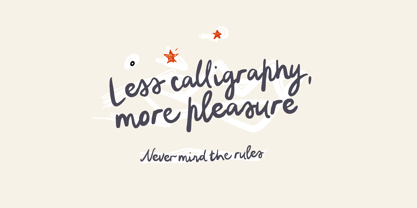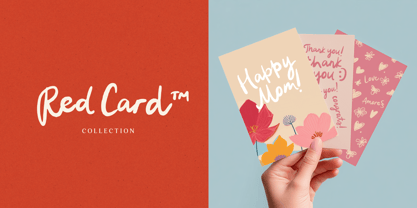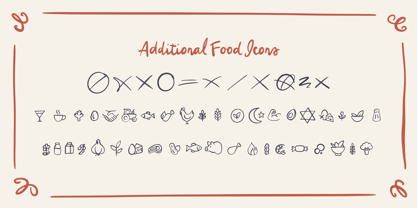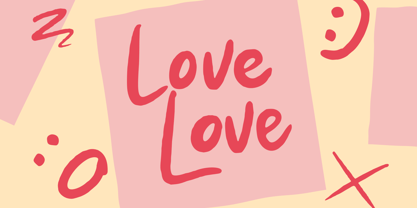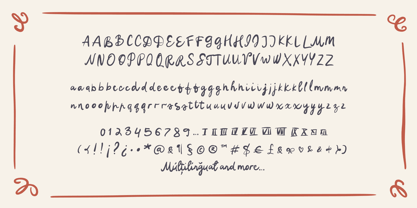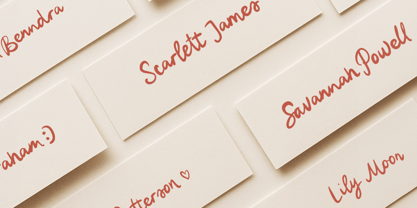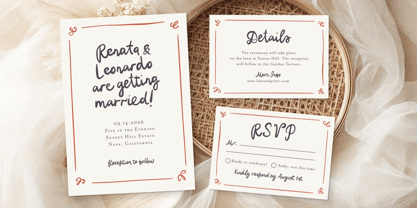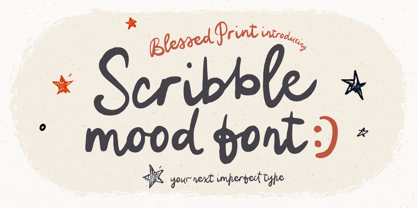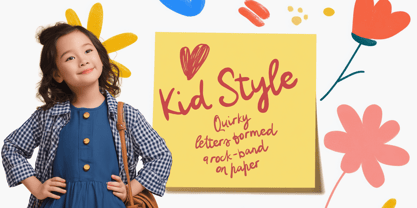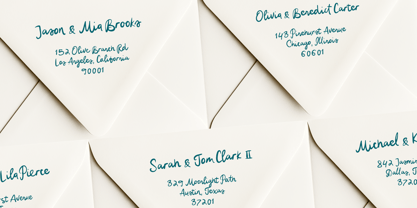
Scribble Mood
by BlessedPrint
The Scribble Mood Font Family was designed by Dmitrii Mikitenko and published by BlessedPrint. Scribble Mood contains 4 styles and family package options. More about this family
Introducing Quirky Font: Scribble Mood
Scribble Mood is a funky, carefree handwritten font with an imperfect, playful rhythm and bouncy handwriting style. Inspired by loose pen sketches, casual doodles, and naive handwriting, this font blends the charm of relaxed calligraphy with the spontaneity of hand-drawn illustration. It's perfect for anyone who loves fun script fonts with a unique personality.
Designed to bring humor, authenticity, and movement to your creative projects, Scribble Mood is packed with expressive extras — from quirky food icons and childlike symbols to alternate letterforms and funky ligatures. Whether you're designing a logo, wedding place card, t-shirt, or kid-friendly label, this casual script font will add joyful energy to every word.
Alternate letters are triggered by adding 1 after any number (ex: A1 or a1)
• Contextual alternates automatically style the last letter of each word, mimicking authentic imperfect handwriting
• Ligatures and stylistic alternates provide a fun script rhythm and organic script flow
• Doodle extras: Includes childlike food icons, checkmarks, arrows, banners, and romantic elements
• Roman numerals: Type I=, II=, IV=, etc. to access decorative numeral forms